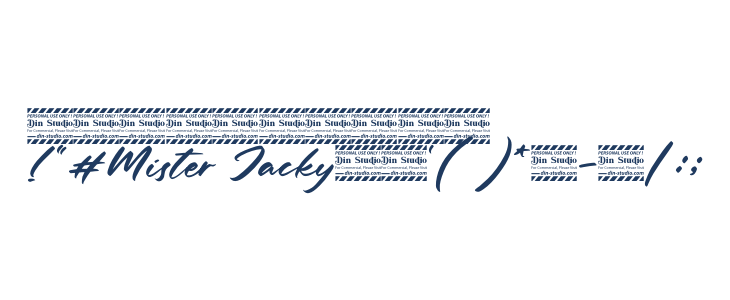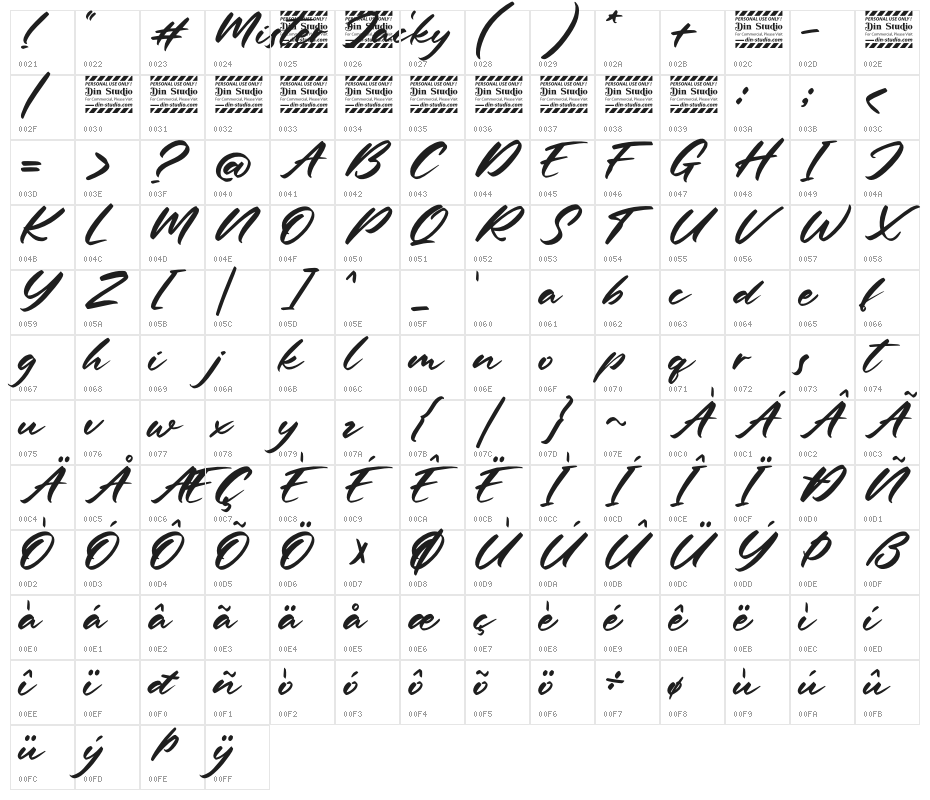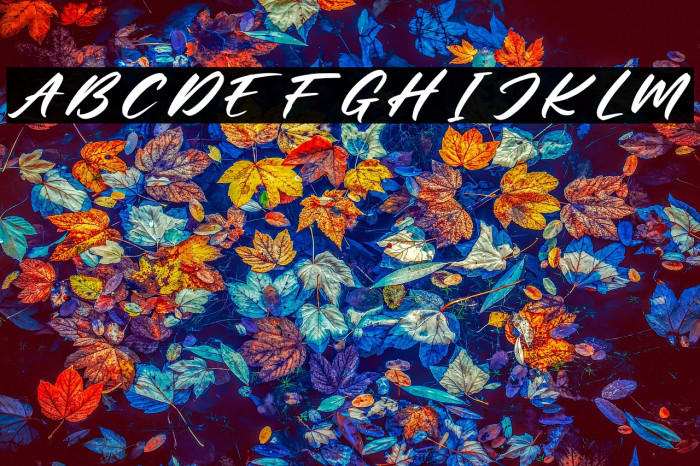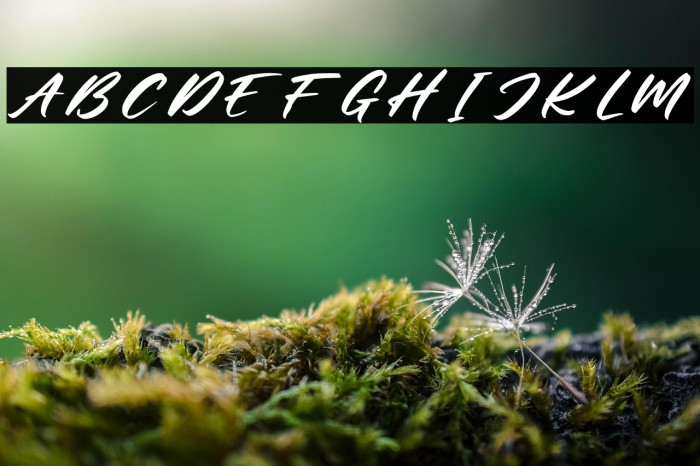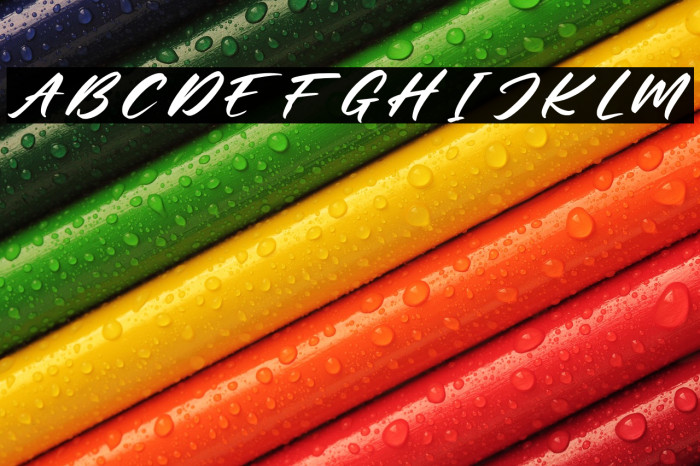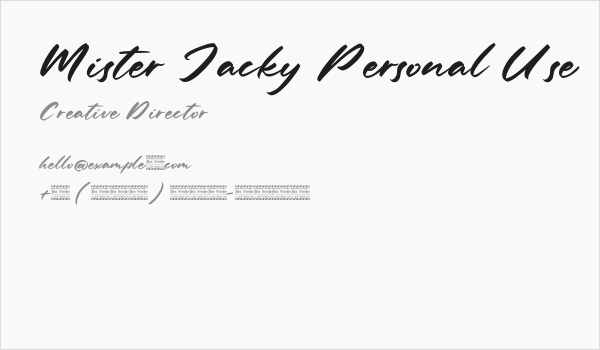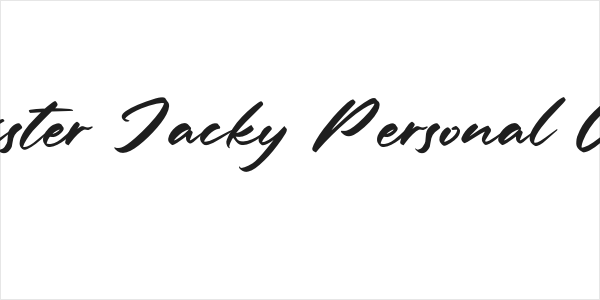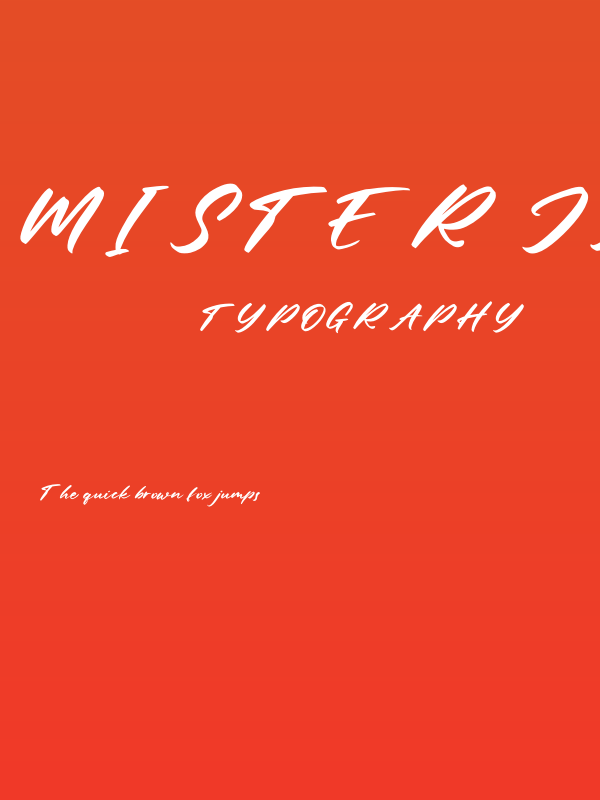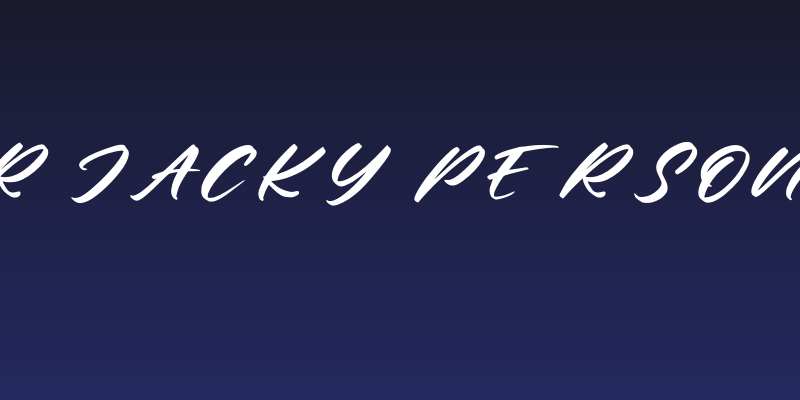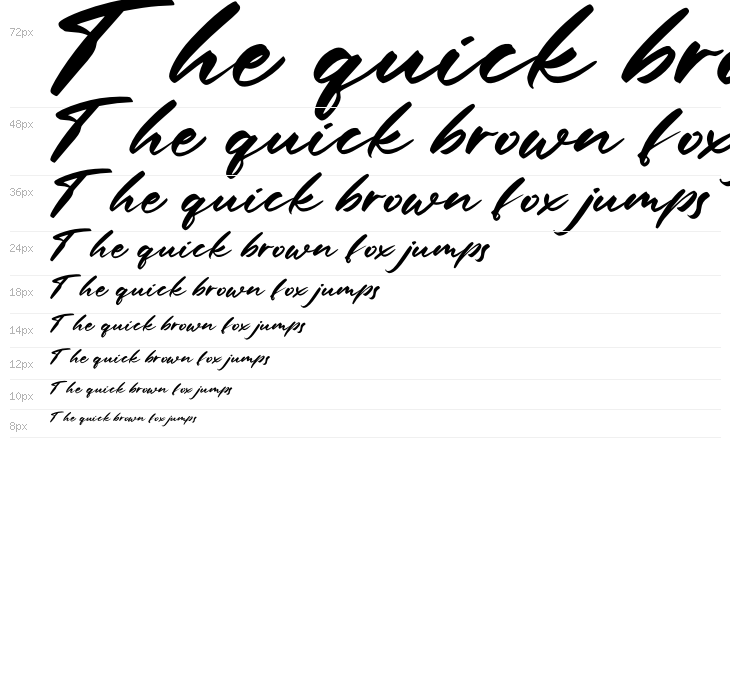
Mister Jacky Personal Use Font
Mister Jacky Personal Use Description
This font features a dynamic and expressive script style, characterized by fluid, sweeping strokes that convey a sense of elegance and movement. The uppercase letters are bold and slightly slanted, giving them a sense of forward momentum. The lowercase letters maintain a consistent flow, with smooth connections between each character, enhancing readability while preserving the artistic flair. The numerals and special characters are designed to complement the overall style, ensuring a cohesive look across all text elements. This font's unique personality makes it ideal for projects that require a touch of sophistication and creativity.